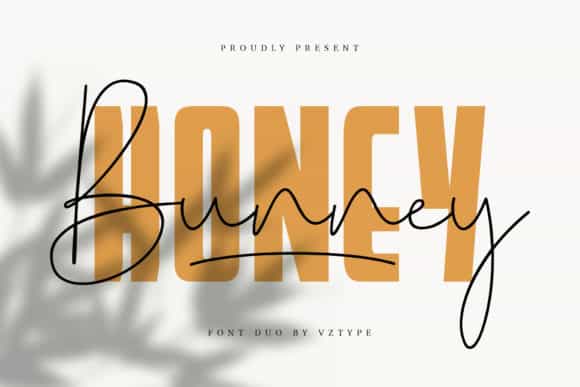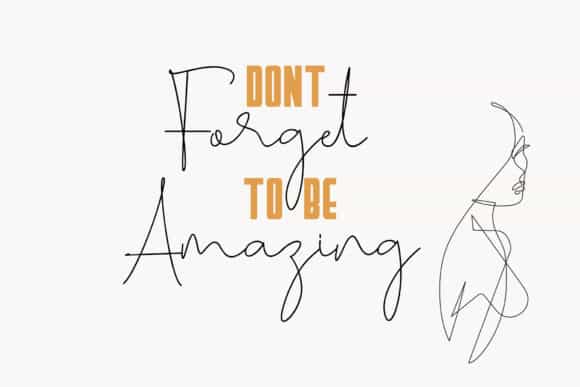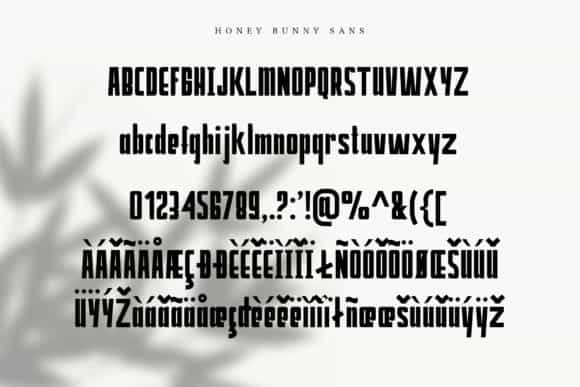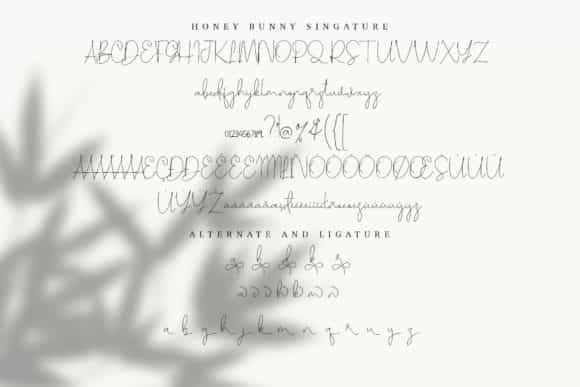
Honey Bunney is a hand drawn duo font consisting of a script and sans font that together create a casual yet stylish combination. Perfect for use, in invitations prints greeting cards and much more!